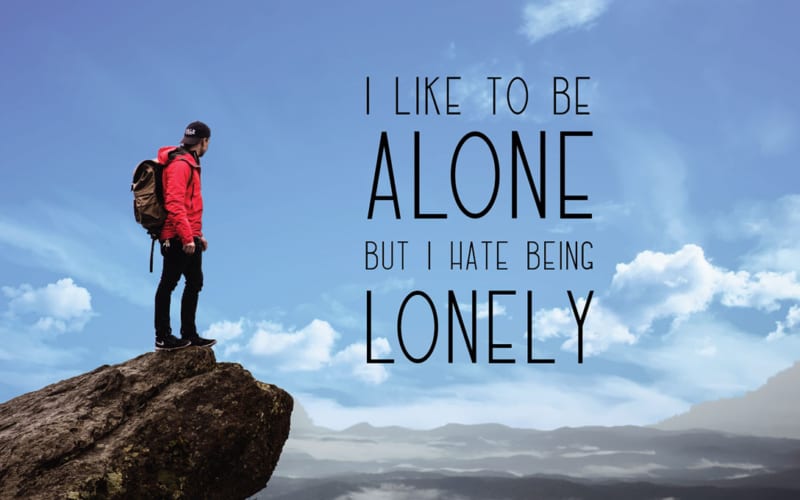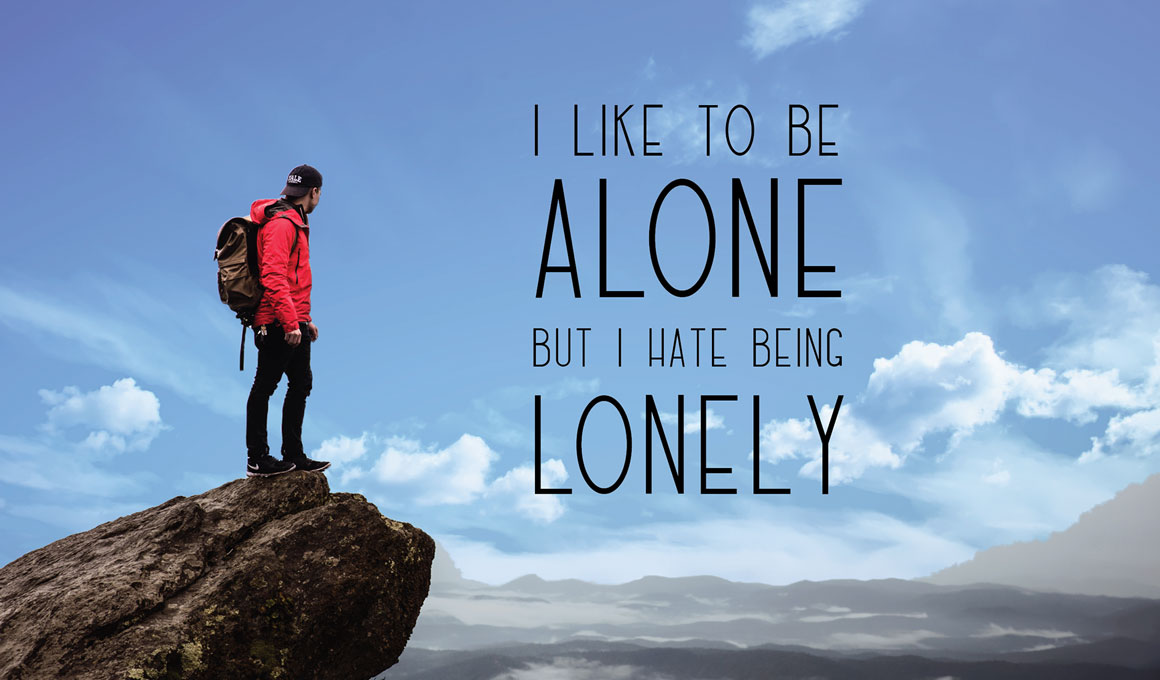
Freeds – A Free Sans Serif Font
Freeds is modern typeface that boasts clean lines and sharp edges.
Freeds is a FREE stylish and versatile typeface Sans Serif Font perfectly suitable for a wide range of applications, but especially for titles and short lines of text, in both print and digital media.
This typeface is a free modern font with clean lines and sharp edges. It contains all caps letters, numbers and symbols. An extremely versatile typeface, Freeds is perfect for quotes, print, advertisements, logos, weddings, invitations, magazines and more!